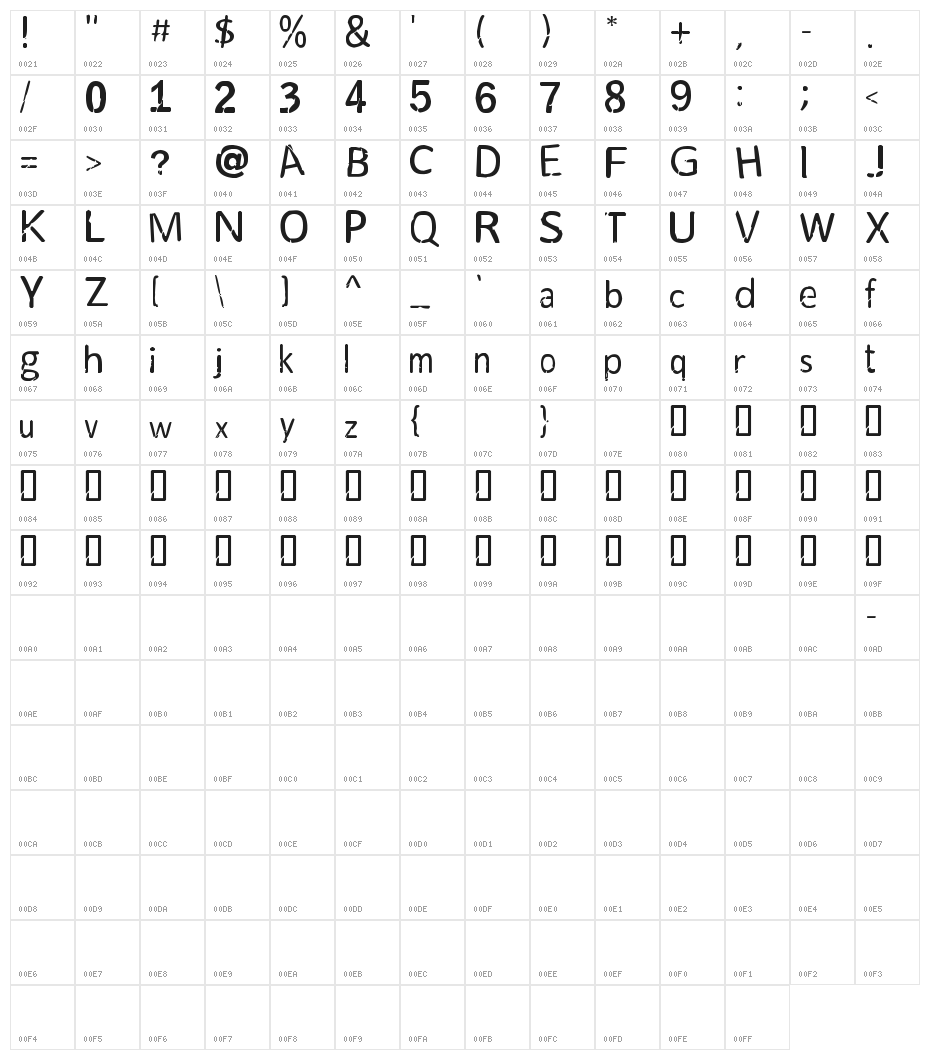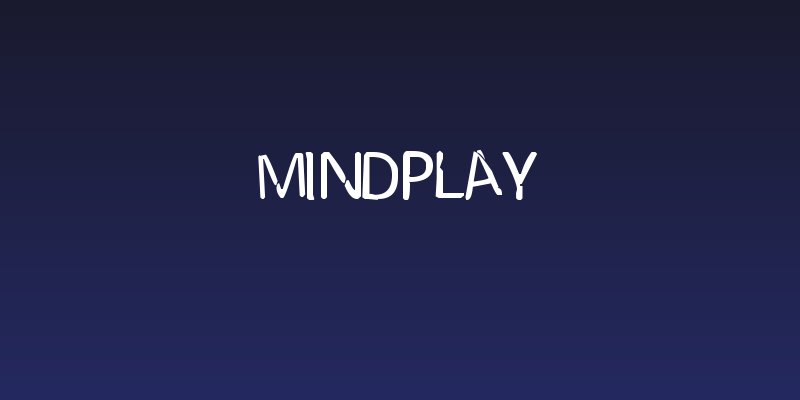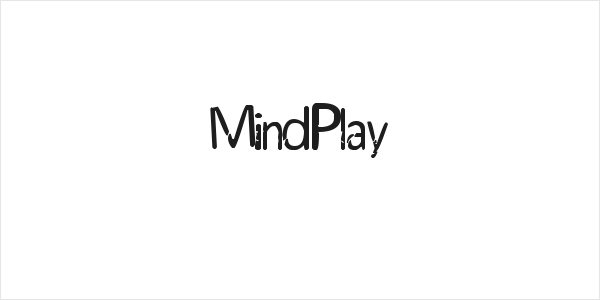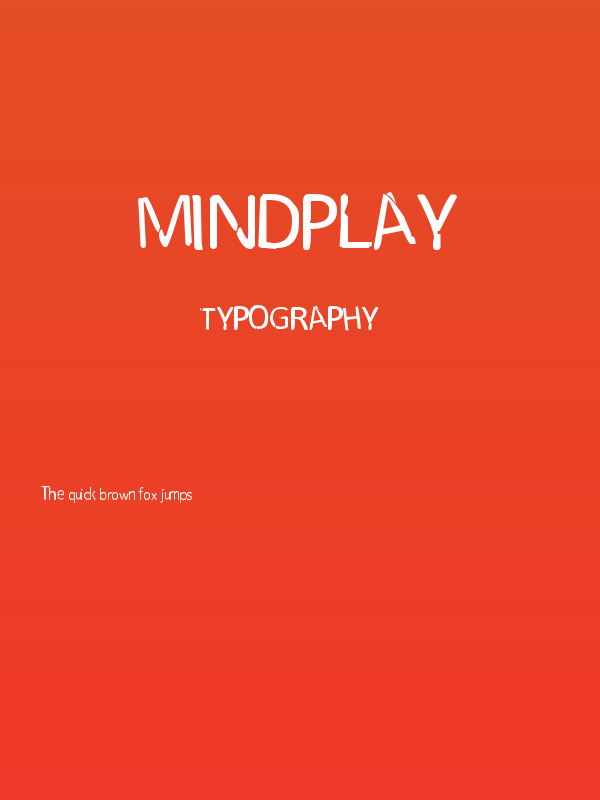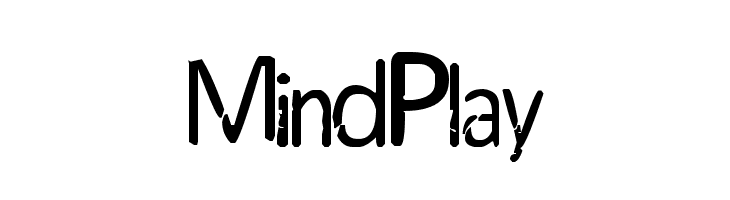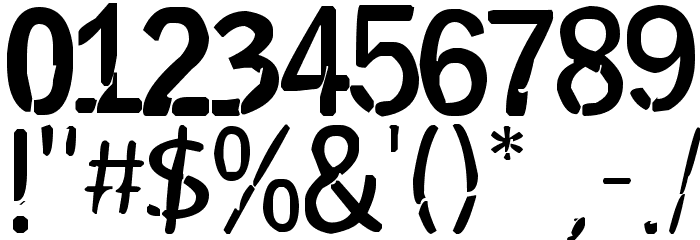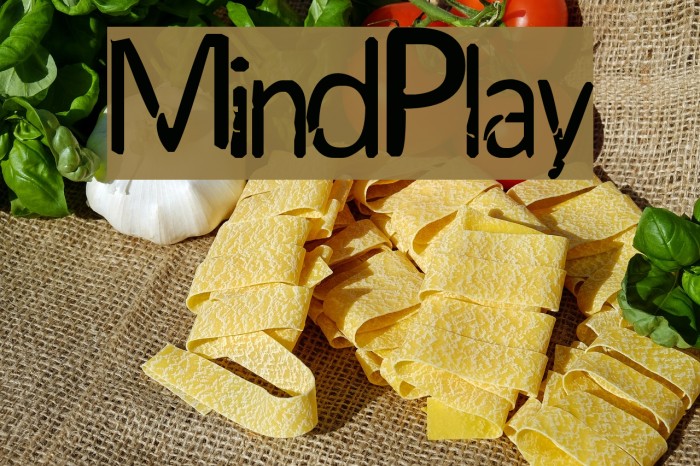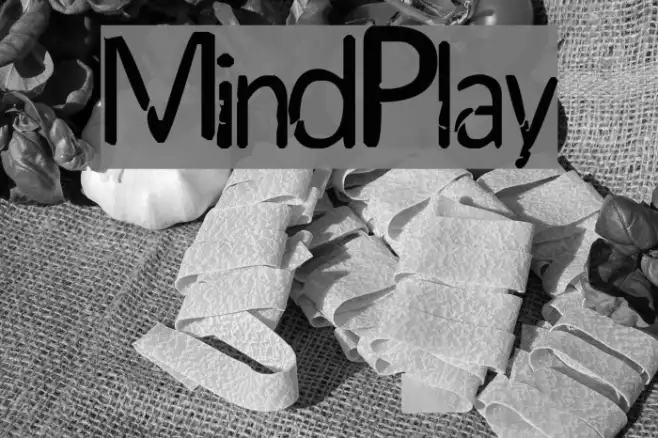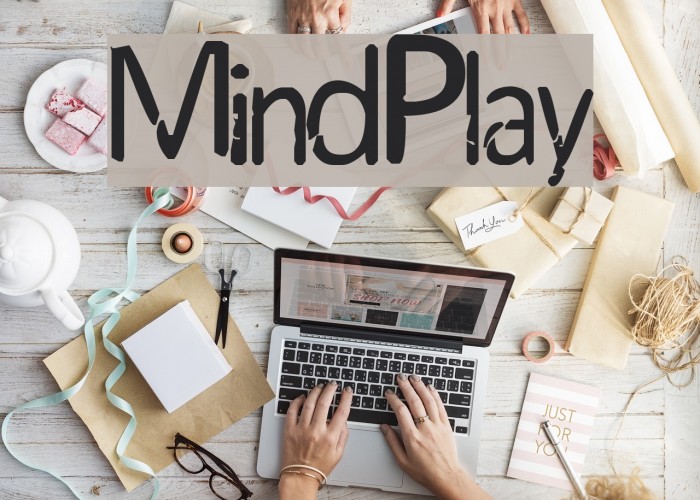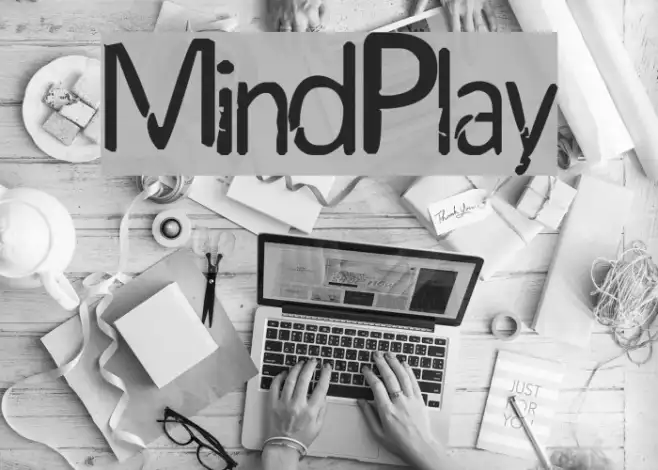
MindPlay Font
MindPlay Description
This font features a unique, playful design with irregular, hand-drawn strokes that give it a casual and artistic feel. The uppercase and lowercase letters maintain a consistent style, with rounded edges and varying stroke thicknesses that add a dynamic and lively character. The numbers and special characters follow the same playful theme, making the font versatile for creative projects. Its distinctive appearance makes it stand out, while still maintaining readability. The font's quirky and informal style is ideal for projects that require a touch of creativity and fun.
| Proposed Projects | Ideal for children's books, creative posters, playful branding, and artistic invitations. |